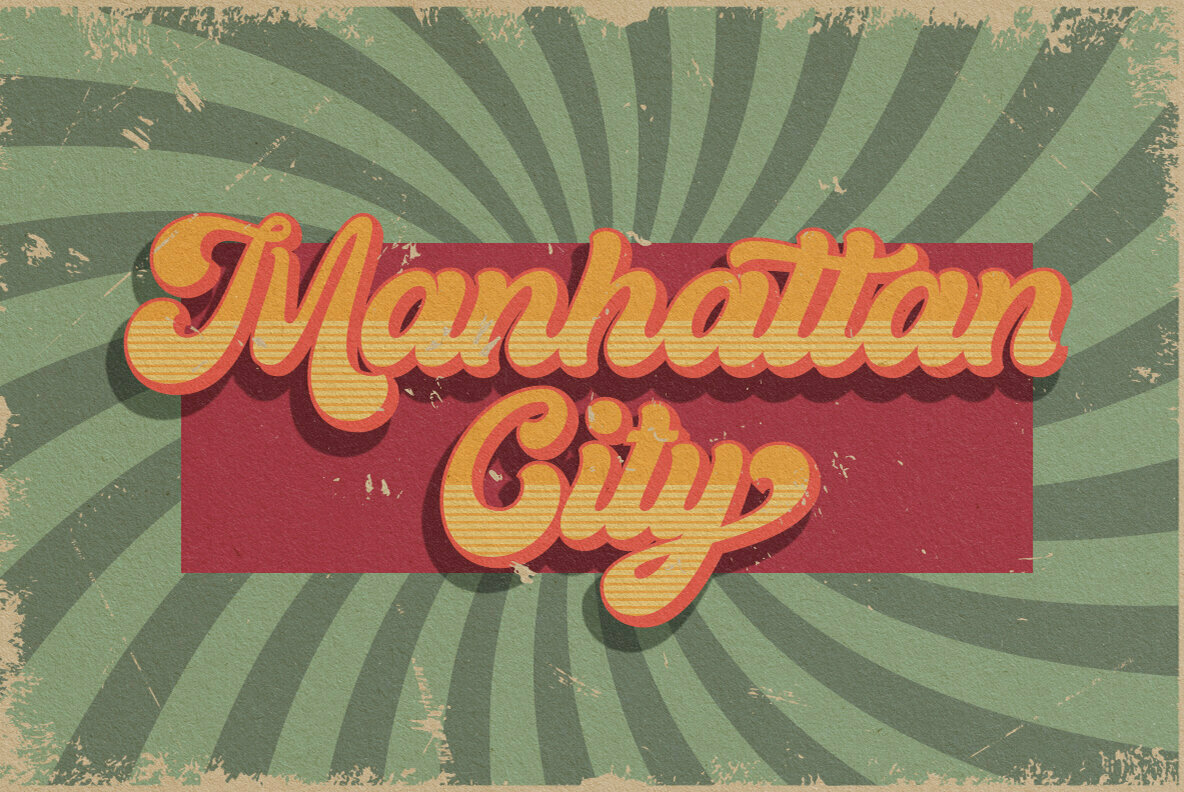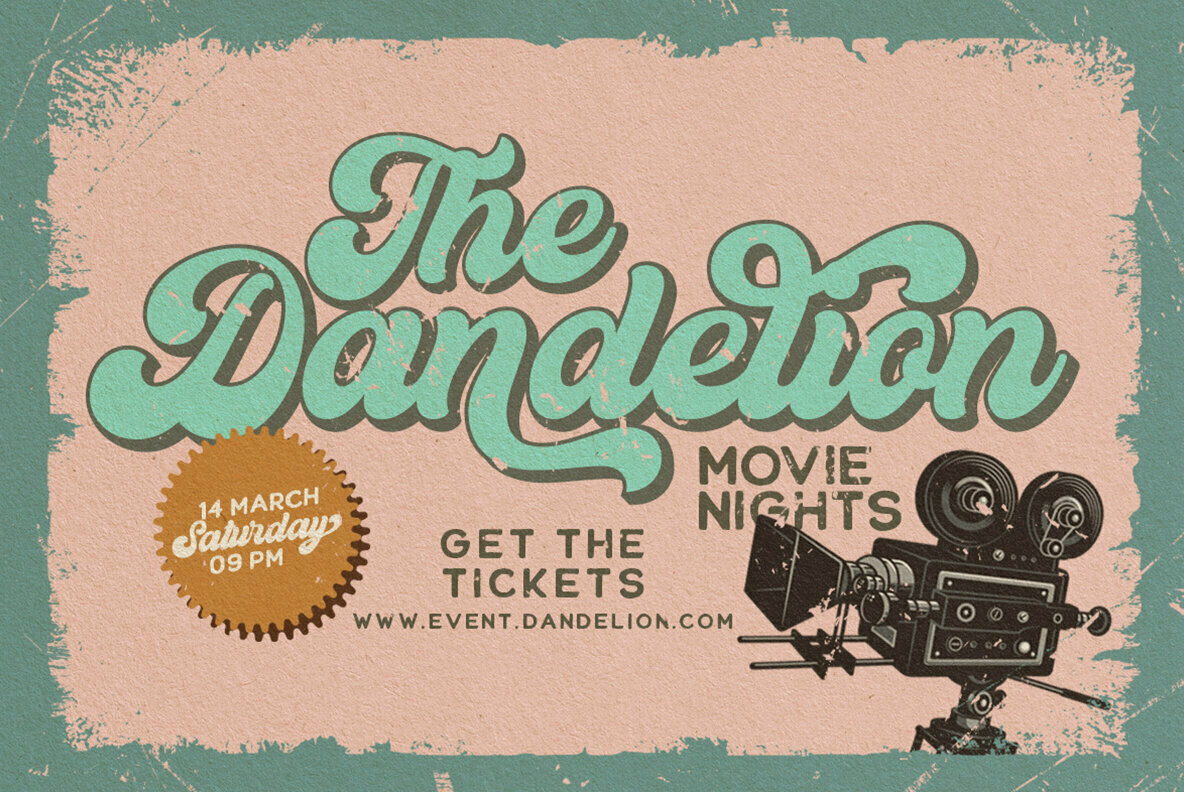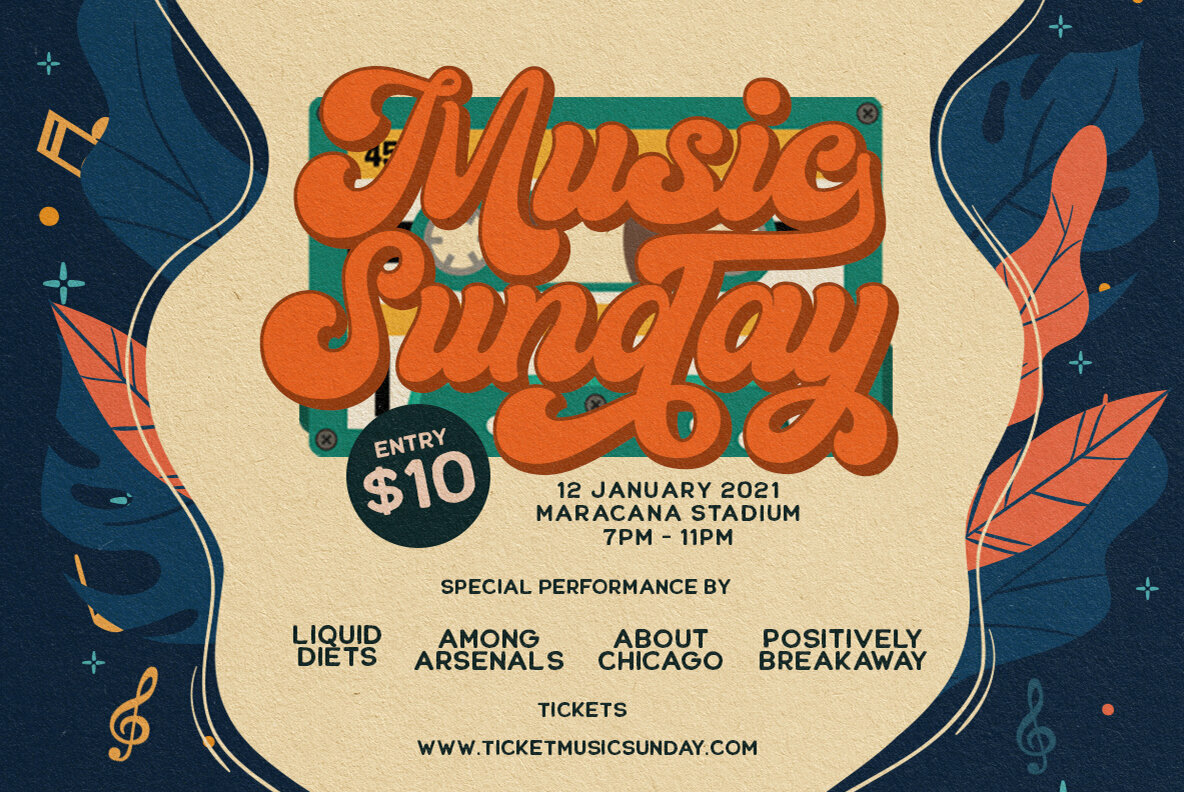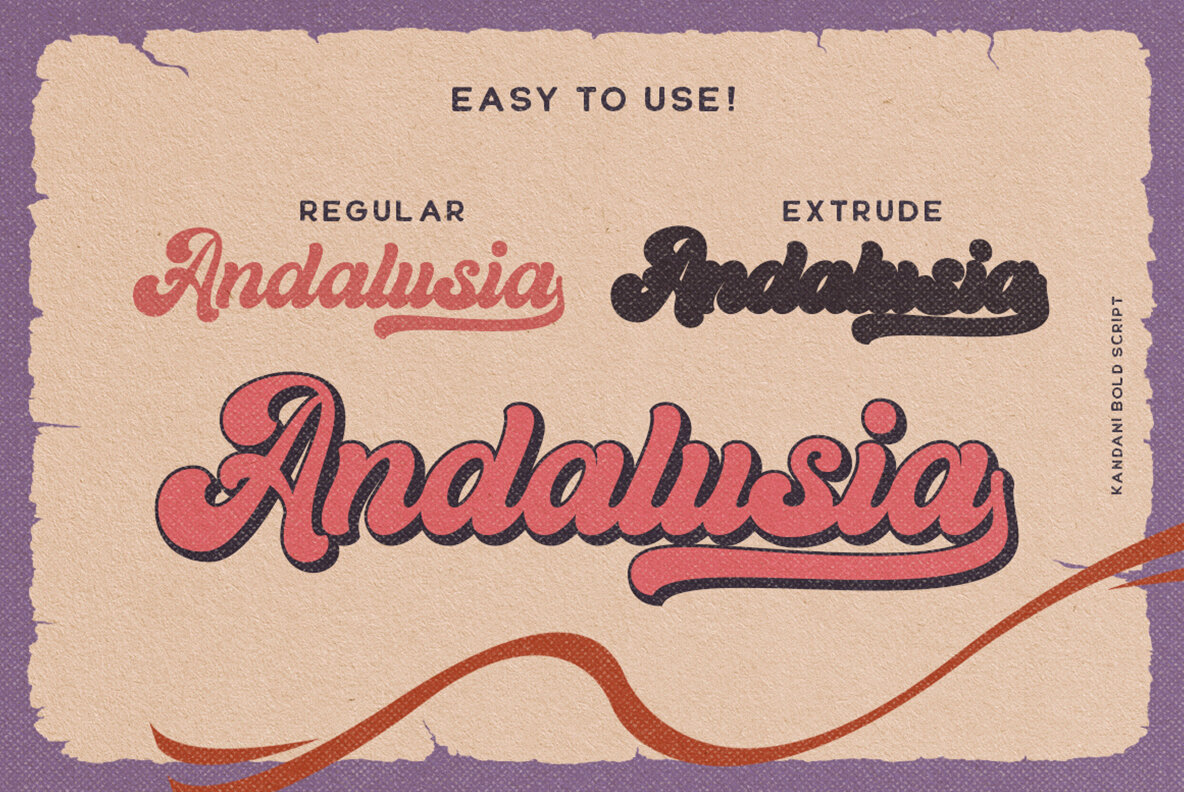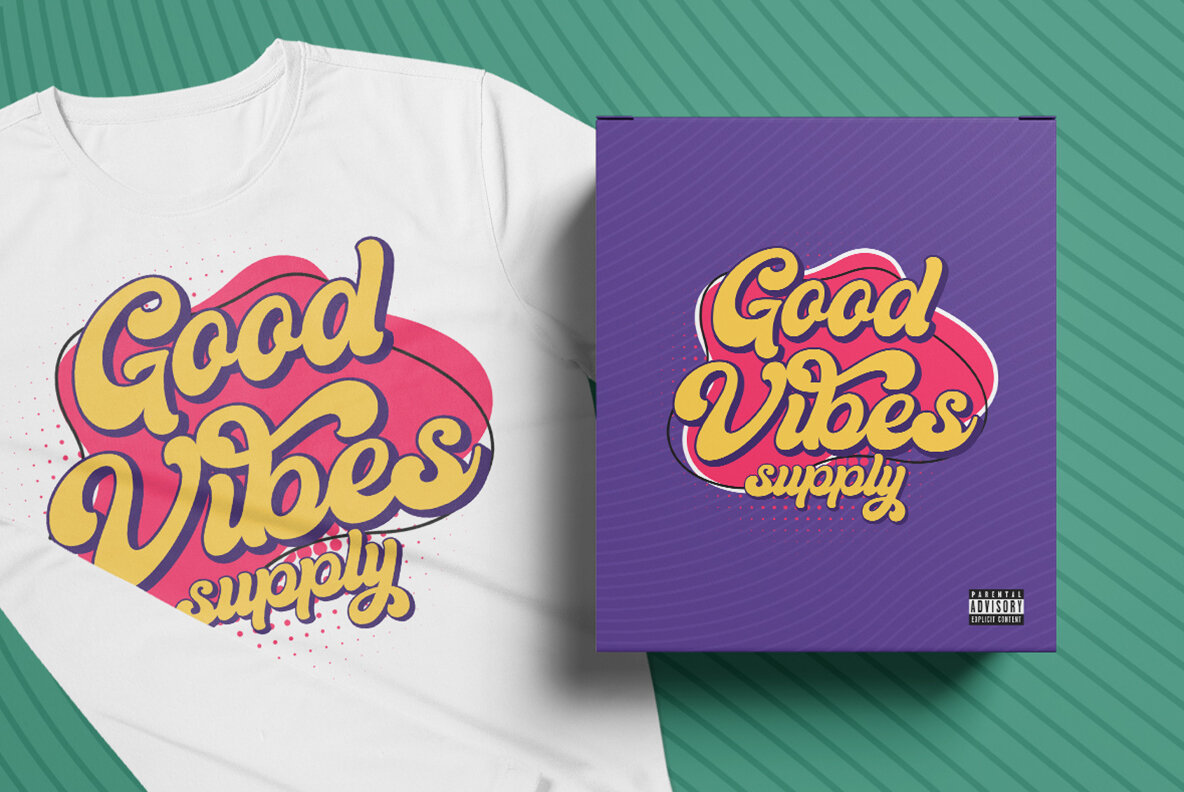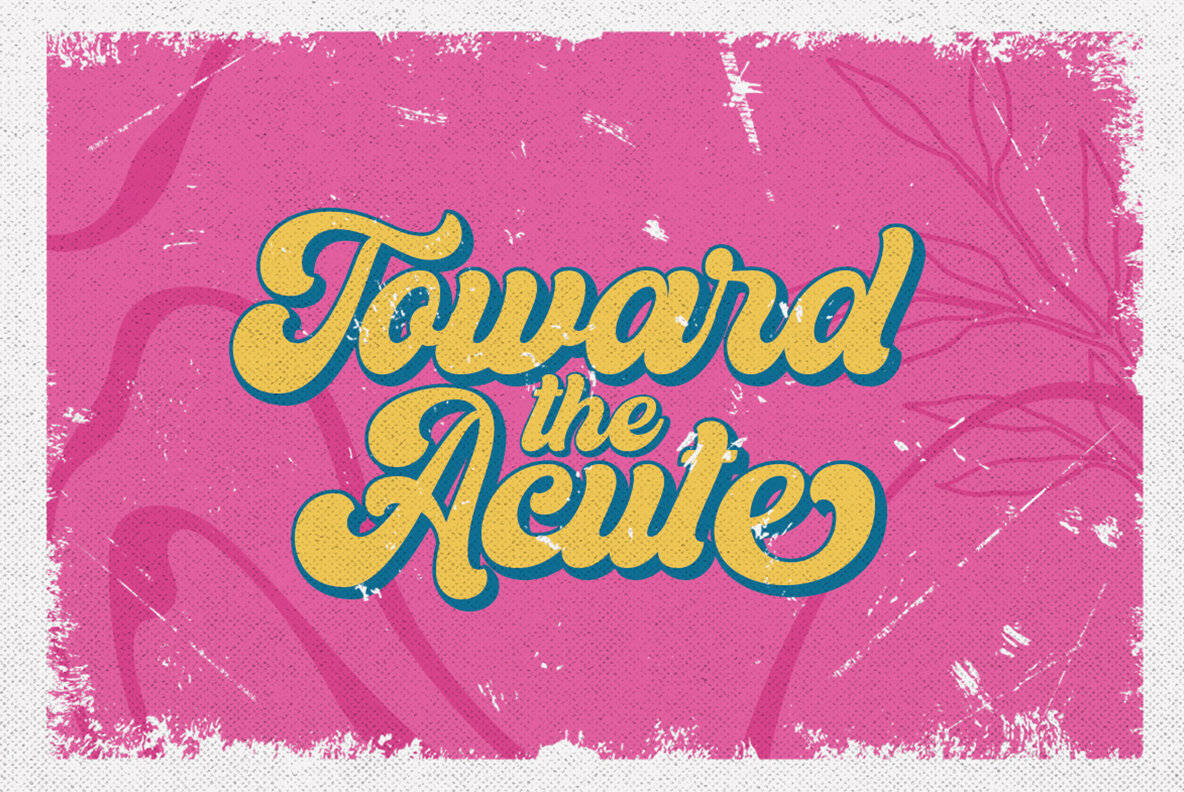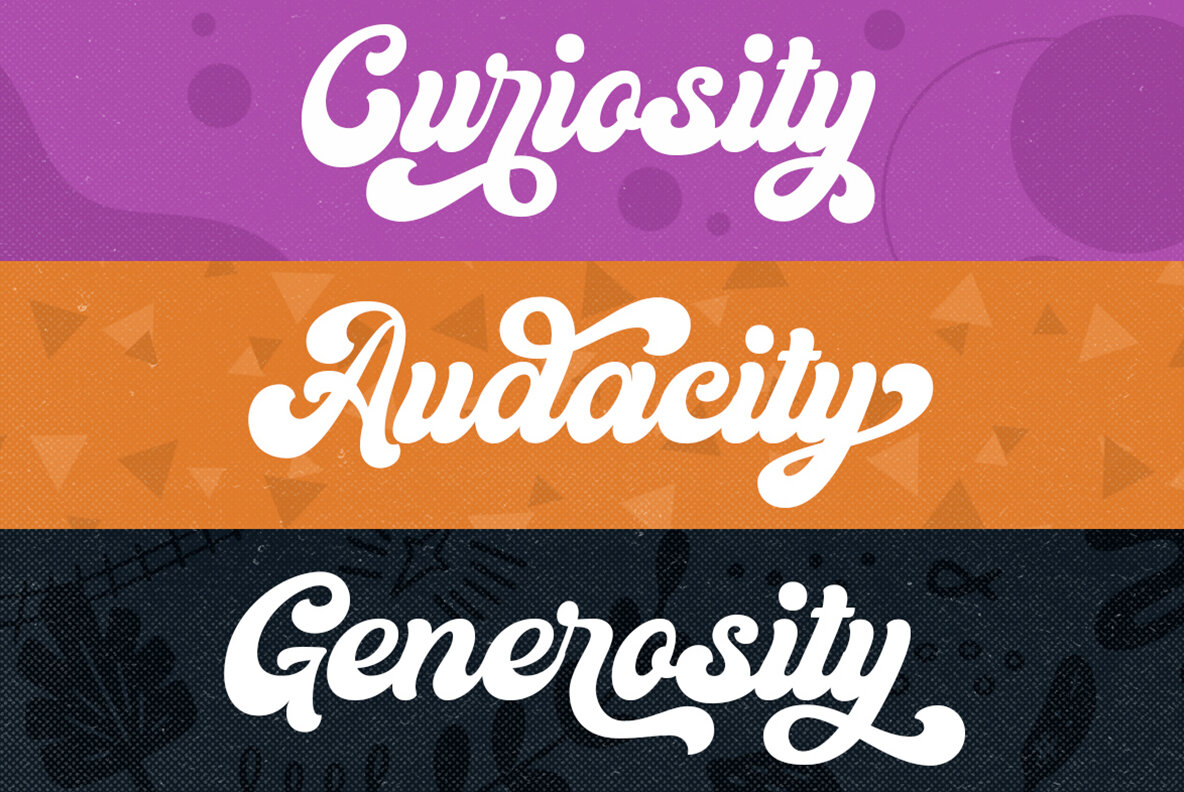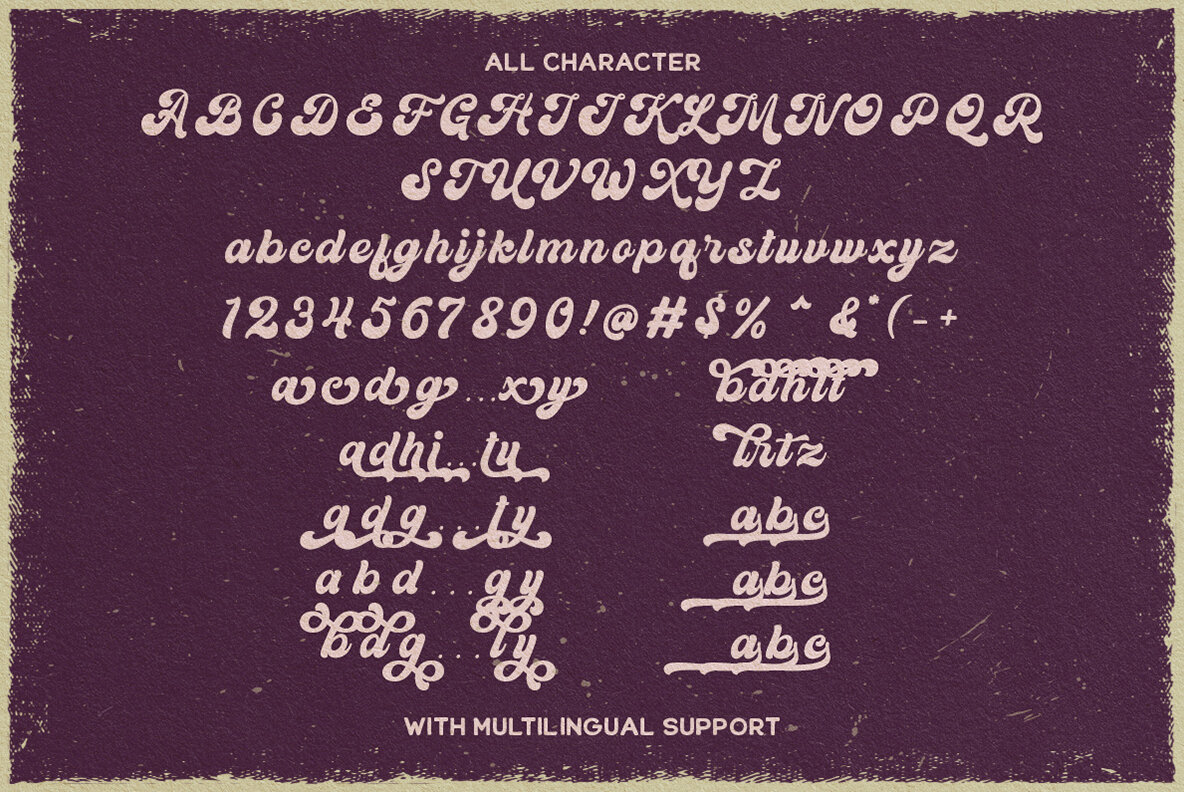
Kandani: A Retro Script with Vintage Charm
Step back into the 1960s with Kandani, a bold script that encapsulates the era's flair. This retro typeface offers an extrude version for easy creation of striking retro effects, making it particularly suited for logos and various formal applications. Whether you are designing invitations, labels, or any type of advertising material, Kandani provides the nostalgic touch you need.
• Uppercase and lowercase letters
• Numbers and punctuation
• Multilingual support
• Ligatures
• Alternates
• Swashes